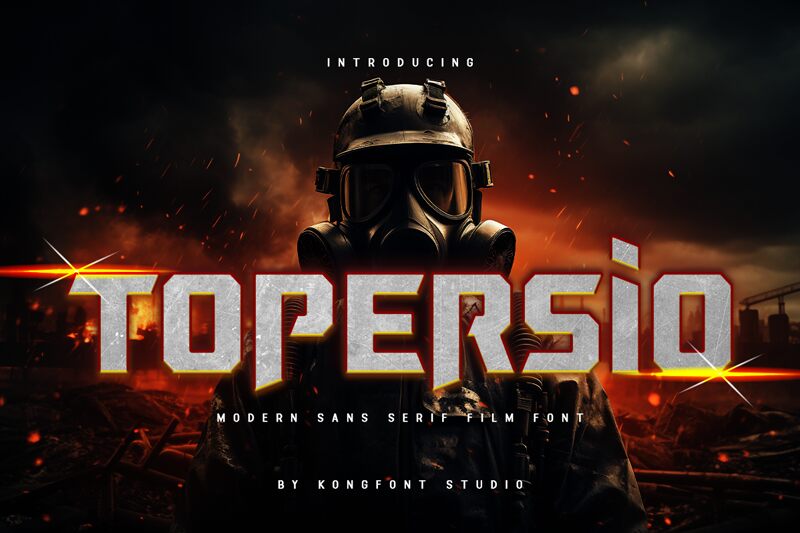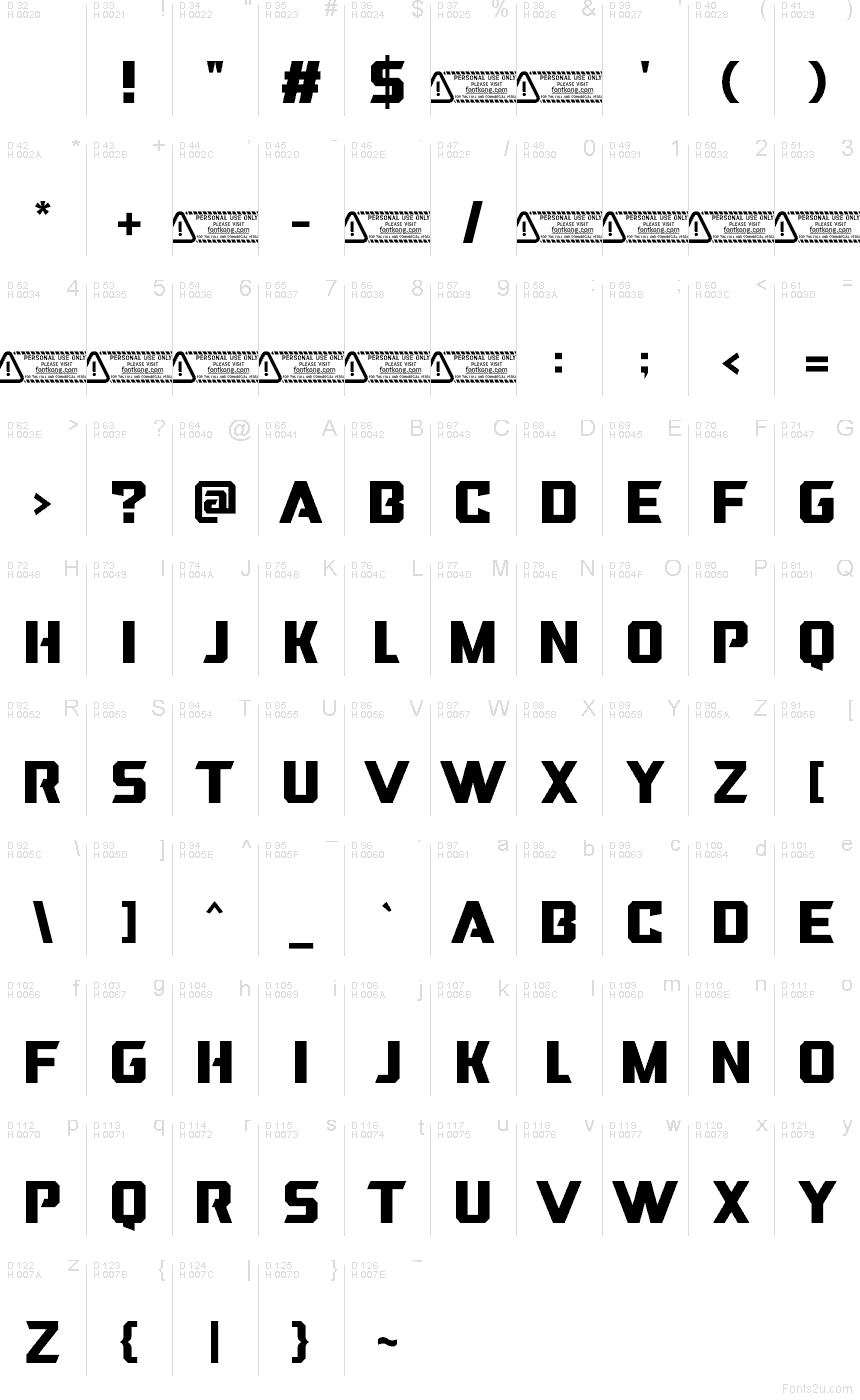
Topersio font by Kong Font is a free techno display typeface with a bold, machine-cut presence. Its chunky, octagonal curves and squared-off counters look like they’ve been carved from metal, giving every word a heavy, futuristic stomp. The tight spacing and consistent strokes create a dense, almost industrial rhythm that grabs attention from far away and doesn’t let go.
Using Topersio, you can power up esports logos, sci‑fi posters, tech event branding, video game titles, bold packaging, or standout YouTube thumbnails. This free font shines when used big and loud, so keep it for headlines and pair it with a simple geometric sans-serif for body text to let its angular personality lead.